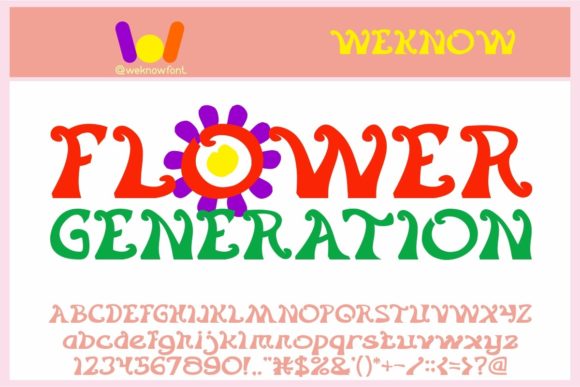
Immerse yourself in the enchanting world of Flower Generation, a display font crafted with meticulous attention to detail. This font is not just a collection of characters; it's a pathway to unlocking your creativity and transforming your projects into captivating masterpieces.
With Flower Generation, your words will bloom with elegance and charm, leaving an everlasting impression on your audience. Whether you're designing a captivating logo, creating eye-catching social media posts, or crafting stunning invitations, this font will effortlessly elevate your designs, igniting a symphony of emotions with every letter.
Step into a realm of endless possibilities, where your imagination knows no bounds. Let Flower Generation be your muse, guiding you towards creating designs that exude sophistication, allure, and timeless beauty. Whether you're a seasoned designer or just starting your creative journey, this font will empower you to unlock your full potential, propelling your projects to dizzying heights.
Experience the allure of Flower Generation today and elevate your designs to unprecedented levels. Dive into a world where creativity blossoms and your projects flourish, leaving a lasting impression on all who encounter them. Let Flower Generation be your gateway to design excellence, igniting a revolution in your creative endeavors.